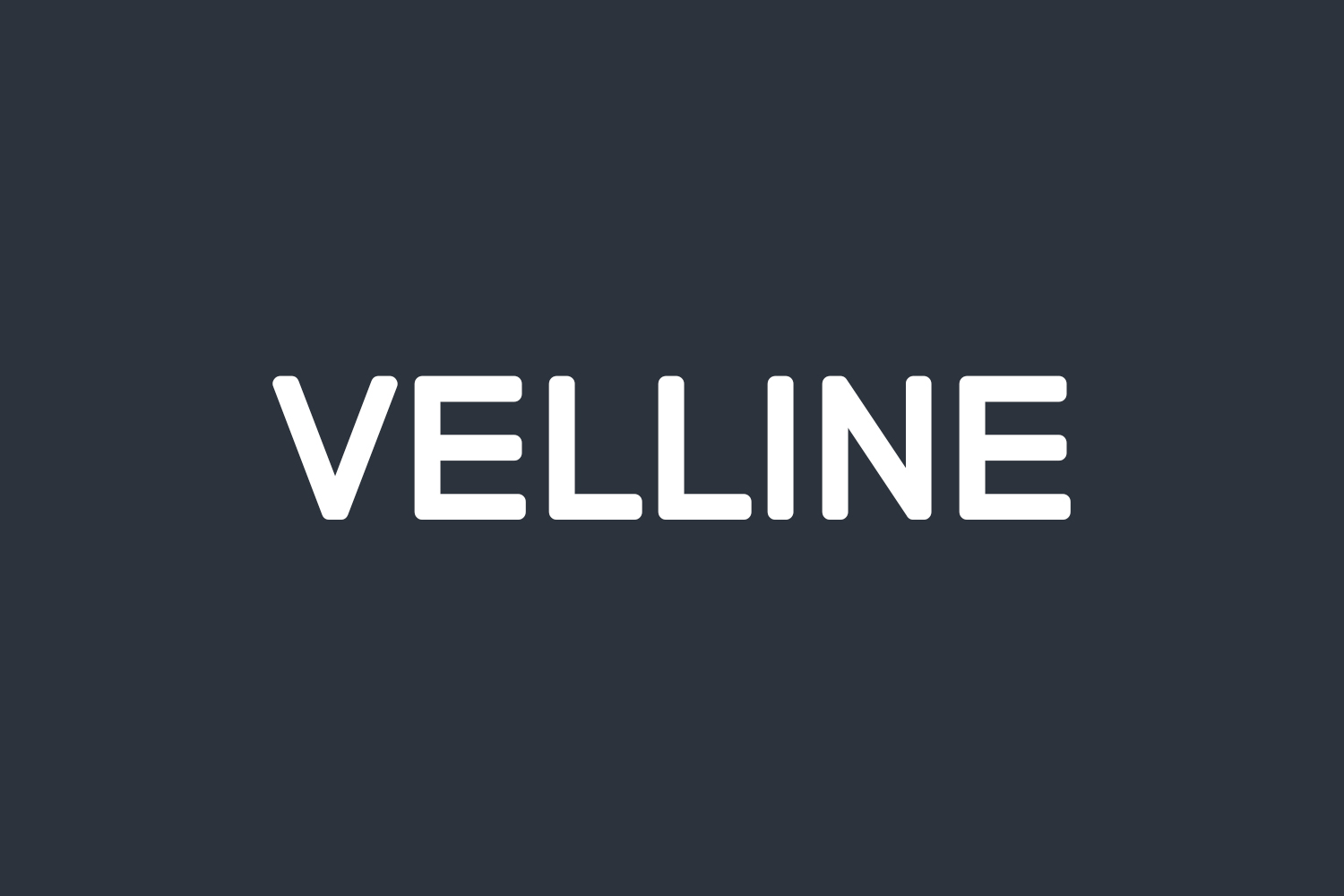
Velline Free Font, a sleek sans serif font, offers minimalistic charm. Versatile and refined, it seamlessly complements a wide array of projects. Incorporate it into your creative endeavors and witness the remarkable enhancement it brings. Download the font for free if you need it for personal use or purchase the full version for commercial use.
Designed by Folv